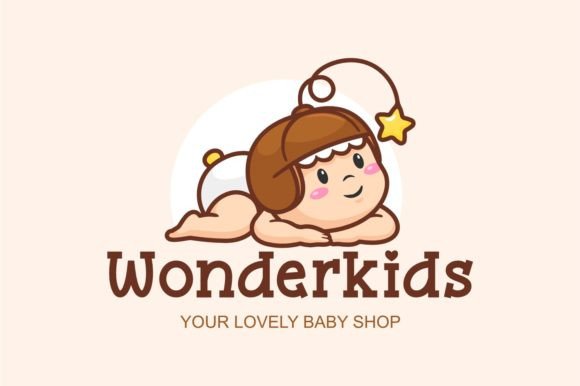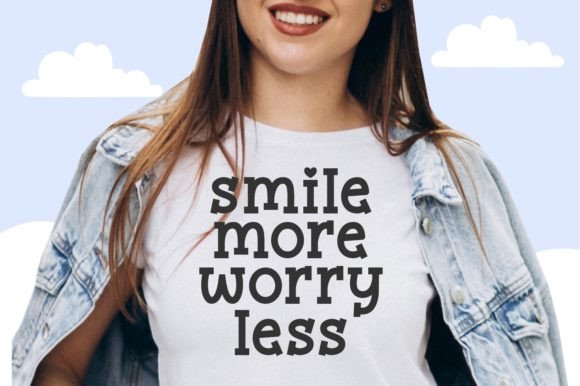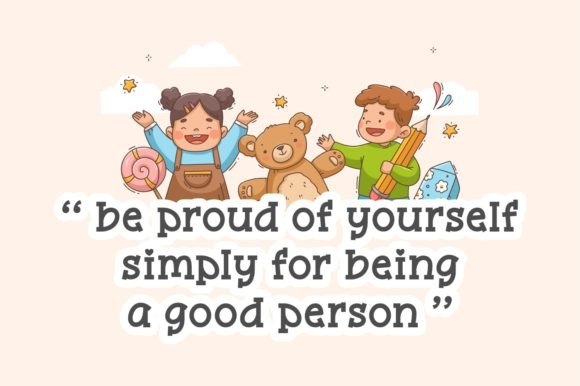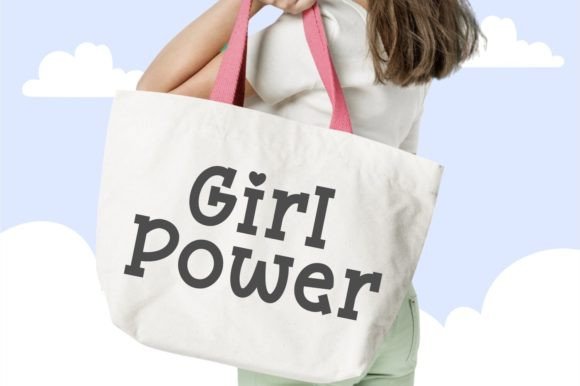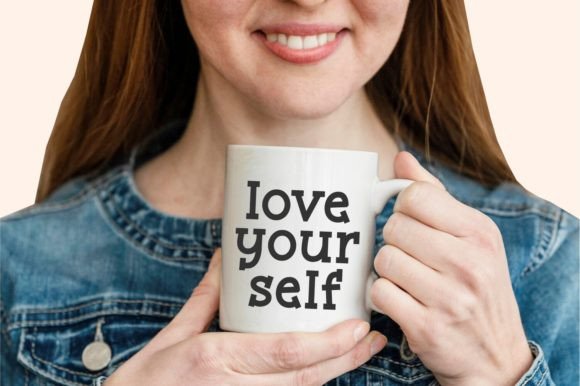
Discover the Joy of Baby Smile Font
Remember the last time you stumbled upon a design that made you smile? For me, it was a children’s book cover adorned with a playful font that seemed to dance across the page. That’s the magic of the Baby Smile Font – a slab serif font that embodies the carefree spirit of childhood.
Designed to capture the essence of playful innocence, Baby Smile Font is a match made in heaven for playgrounds, school themes, or craft projects. As a designer, you’ll appreciate its versatility in adding an irresistible touch of cuteness to digital designs, lively restaurant menus, engaging presentations, or heartwarming greeting cards.
Whether you’re a seasoned pro or a creative enthusiast, the Baby Smile Font is sure to become your go-to companion for any design endeavor that requires a dash of whimsy and charm.
Baby Smile Font Key Features
- Font Family: Baby Smile, a custom-designed font for cute and playful applications.
- Unique Characteristics: Features a distinctive, childlike style with rounded edges and playful letterforms, ideal for children’s books, nursery decorations, and other applications requiring a soft, gentle look.
Baby Smile Font Review
As a designer, I was initially drawn to the Baby Smile Font for its playful, whimsical feel. ✨ The rounded edges and soft curves give it a warm, endearing quality that’s perfect for children’s products or nursery decor. The font also works well for creating a sense of nostalgia, which can be great for retro-themed designs or vintage-inspired projects.
However, I do have a few concerns with the font’s functionality. ⚠️ For one, it’s not suitable for body text, as it can be difficult to read in larger blocks of text. Additionally, the font’s rounded shapes can make it challenging to distinguish between certain characters, particularly in certain font sizes. This can lead to readability issues and may require additional design work to ensure clarity.
Here are a few specific limitations I’ve encountered:
- Not suitable for body text due to readability issues
- Can be difficult to distinguish between certain characters in certain font sizes
- May require additional design work to ensure clarity
Overall, I think the Baby Smile Font is a great choice for decorative or title-based designs, but it may not be the best option for projects that require large blocks of body text.
Some tips for getting the most out of the Baby Smile Font include:
- Using it for children’s products, such as baby clothes and nursery decor.
- Applying it to wedding invitations and stationery for a playful touch.
- Using it in branding for children’s businesses, such as daycare centers and kids’ restaurants.
- Choose a soft, pastel color scheme to match the nursery’s theme.
- Select a wood or canvas background to give the sign a rustic or modern touch.
- Use a combination of uppercase and lowercase letters to create a playful and whimsical feel.
- Watercolor illustrations of baby animals or flowers.
- A delicate lace or crochet pattern to add texture and depth.
- A soft, white or cream-colored ribbon to hang the sign.
- Choose a bright and bold color scheme to match the party’s theme.
- Select a digital or print template with a fun and playful design.
- Use a combination of uppercase and lowercase letters to create a playful and energetic feel.
- Colorful illustrations of smiley faces or party hats.
Create a heartwarming welcome sign for a nursery using the Baby Smile Font. This font is perfect for a baby’s name or a cute message that will make the nursery feel cozy and inviting.
To use Baby Smile Font in this project:
Combine Baby Smile Font with other design elements like:
Smiley Face Party Invitations
Add a touch of whimsy to party invitations with the Baby Smile Font. This font is perfect for creating a fun and playful atmosphere that will make guests smile.
To use Baby Smile Font in this project:
Combine Baby Smile Font with other design elements like: